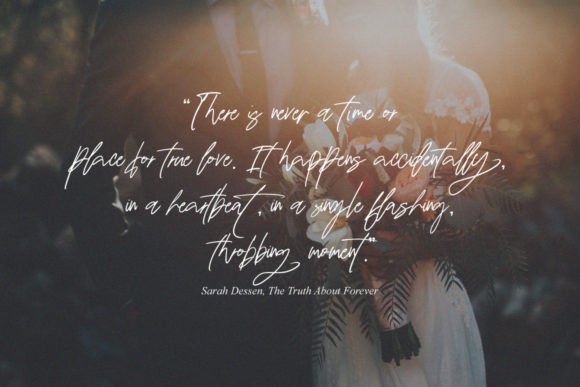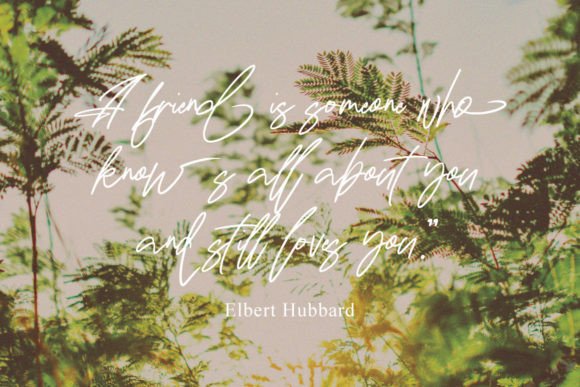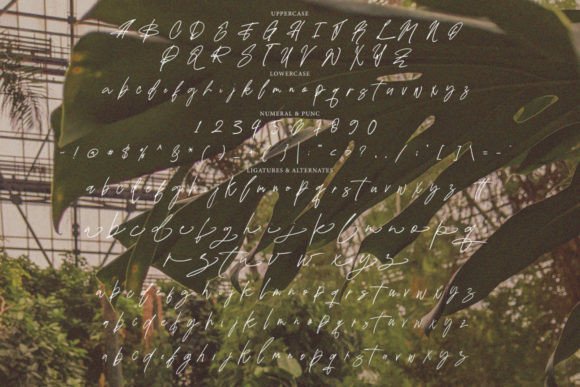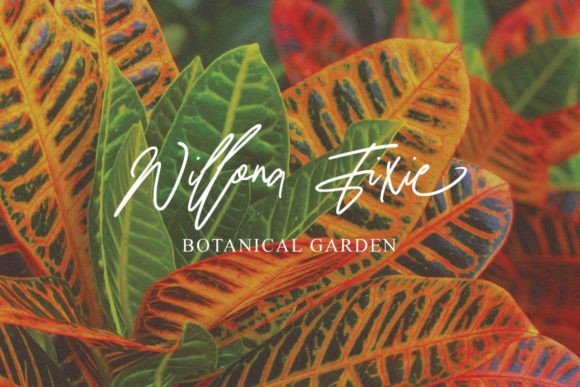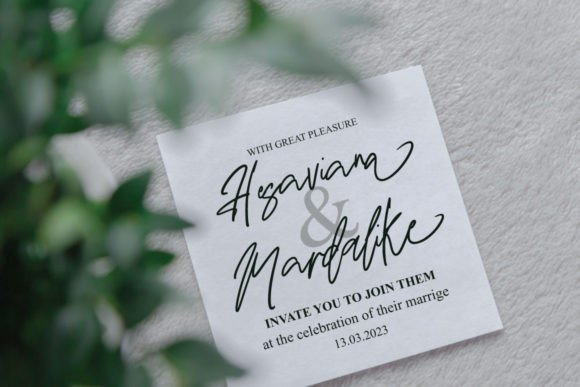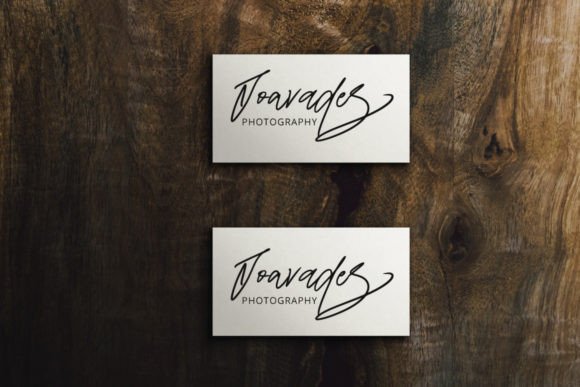
Introduction to Qikabey Font
Have you ever stumbled upon a design that makes you swoon, and you can’t help but wonder what magic lies behind its creation? For designers, discovering a high-quality font can be a game-changer, elevating a project from ordinary to extraordinary. That’s exactly what happened when we discovered the Qikabey Font – a stunning signature script font that has captured the hearts of many.
With its elegant and flowing letterforms, Qikabey Font is the perfect design resource for creatives looking to add a touch of romance and charm to their projects. Whether you’re working on a wedding invitation, love letter, or any other romantic project, this font is sure to make your design stand out. Its delicate flourishes and timeless look make it a valuable addition to any designer’s toolkit.
Key Features of Qikabey Font
- Unique, stylish font with a transparent background for versatile design applications
- Perfect for designers and artists looking for a modern, creative design element
- Can be used in a variety of design projects, including graphics, logos, and more
Honest Review: Qikabey Font
As a designer, I’m always on the lookout for high-quality design resources that can elevate my creative projects. The Qikabey Font is one such resource that caught my attention, and I’m excited to share my thoughts on it.
What works well: ✨ The Qikabey Font has a unique and modern design aesthetic that makes it perfect for a variety of creative projects. It’s also available for free download, which is a major plus in my book. The font is highly customizable, allowing me to experiment with different styles and effects. I also appreciate the transparent background option, which makes it easy to integrate into my designs.
However, there are some limitations to consider: ⚠️ The font’s consistency can be a bit hit-or-miss, and some characters may appear slightly off-center. Additionally, the font’s size and weight options could be more comprehensive.
Overall, I’m impressed with the Qikabey Font’s potential as a design resource. While it’s not without its limitations, its unique design aesthetic and free download make it a valuable addition to any designer’s toolkit.
- Unique and modern design aesthetic
- Consistency can be inconsistent
- Size and weight options could be more comprehensive
The Qikabey Font is a high-quality design resource perfect for creative projects that require a unique and eye-catching touch. This versatile font is available for free download and features a transparent background, making it ideal for a variety of applications.
The Qikabey Font is perfect for a variety of creative projects, including:
- Graphic design and branding
- Print design and publishing
- Social media graphics and advertising